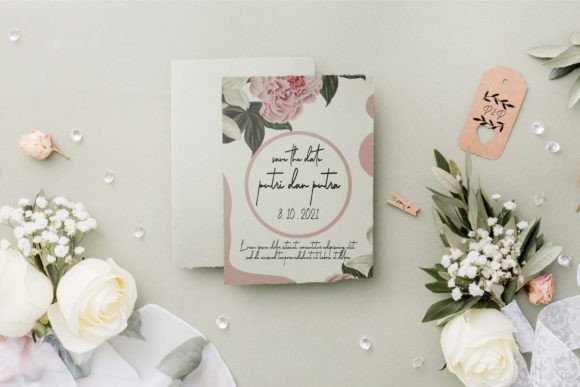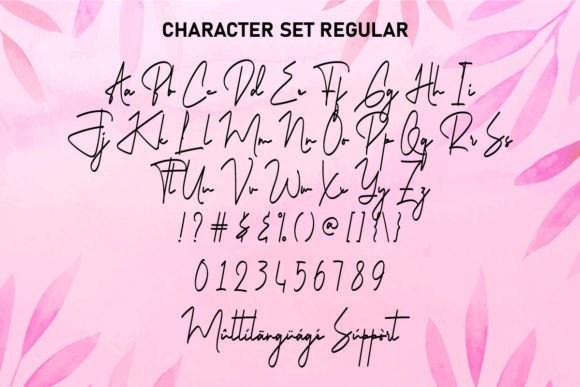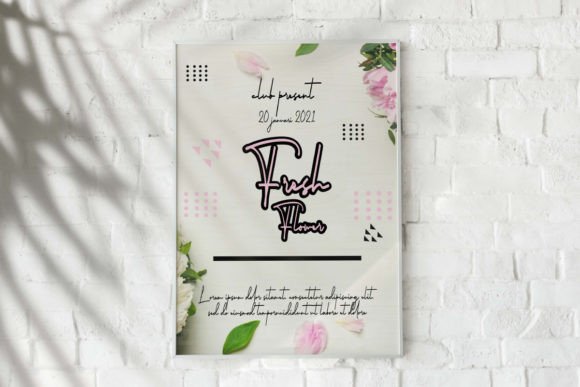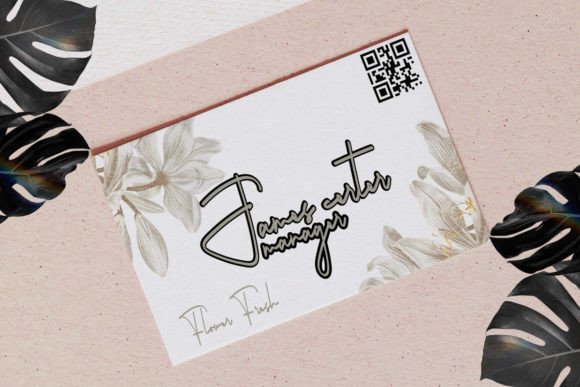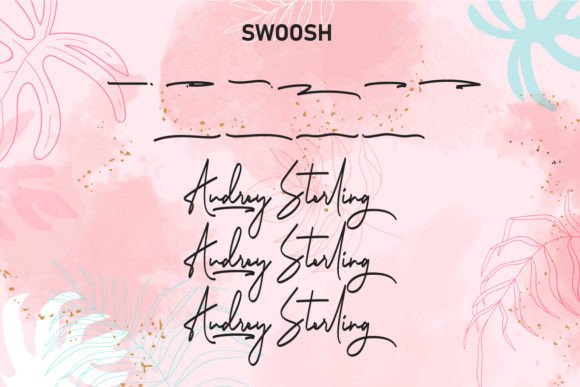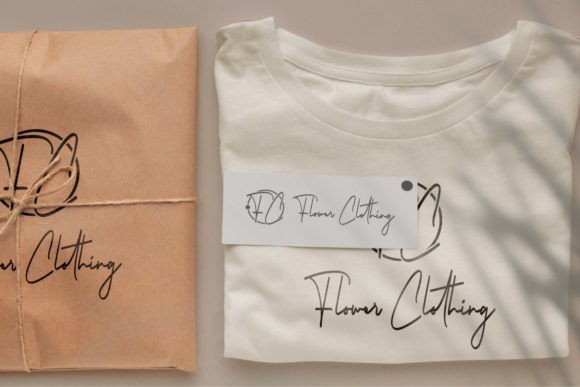
A Touch of Elegance with Every Stroke
Have you ever stared at a blank canvas, waiting for the perfect idea to strike? The blank page stares back, taunting you to bring your vision to life. It’s in these moments of creative uncertainty that a well-chosen font can be the difference between a mediocre project and a masterpiece.
Enter the Audrey Sterling Font, a beautifully crafted signature font with a handwriting style that exudes elegance and sophistication. This font is designed to create a natural, effortless look that’s perfect for a wide range of industries, from publishing and photography to fashion and events.
For designers, the Audrey Sterling Font is a valuable addition to their toolkit, offering a unique and versatile way to add a touch of personality to their projects. With its PUA encoding, accessing all the amazing glyphs and ligatures is a breeze, making it a must-have for any serious designer looking to elevate their work to the next level.
Audrey Sterling Font Key Features
- Font Family: Audrey Sterling Font is a premium font family, consisting of 12 styles, including 6 weights and their corresponding italics.
- Unique Characteristics: Audrey Sterling Font is known for its elegant, luxurious, and sophisticated feel, making it perfect for high-end branding, packaging, and editorial design.
- Language Support: Supports a wide range of languages, including Latin, Greek, and Cyrillic scripts.
Audrey Sterling Font Review
I recently had the chance to work with the Audrey Sterling font, and I have to say, it’s a unique and stylish addition to any design project. ✨ Here are some things that work well:
- Highly customizable: The font comes with a wide range of styles and weights, making it easy to match it to any design aesthetic.
- Beautiful script font: The Audrey Sterling font is perfect for adding a touch of elegance and sophistication to any design project.
- Great for headings: The font is particularly well-suited for headings and titles, adding a level of sophistication and style to any text.
However, there are some limitations to keep in mind:
- May be difficult to read at small sizes: The font’s script style can make it difficult to read at small font sizes.
- Not ideal for body text: While the font is great for headings and titles, it may not be the best choice for body text due to its ornate style.
Overall, I think the Audrey Sterling font is a great addition to any designer’s toolkit, but it’s essential to use it judiciously. It’s perfect for adding a touch of elegance and sophistication to specific design elements, but it may not be the best choice for everyday body text.
The Audrey Sterling Font is ideal for creating elegant and sophisticated designs, such as:
- Magazine and newspaper articles
- Book covers and interior designs